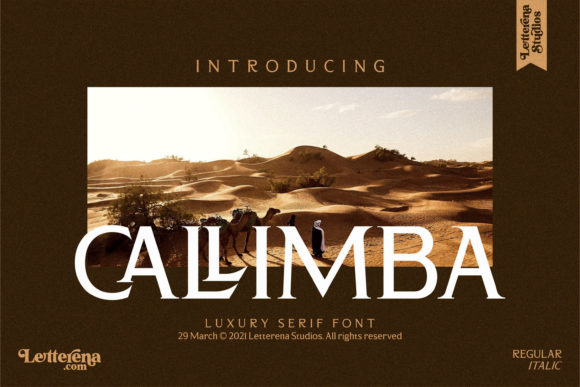
Introducing Callimba Font, the captivating serif font that will infuse your designs with a touch of timeless elegance and warmth. Created by the renowned Letterena Studios, Callimba is not just a font; it's an invitation to embark on a creative journey where your imagination knows no bounds.
With its delicate curves and graceful serifs, Callimba exudes a sense of sophistication that will elevate any project you undertake. Whether you're designing wedding invitations, crafting personalized stationery, or creating eye-catching social media posts, Callimba's versatile nature makes it the perfect choice for all your design needs.
Experience the joy of creating with a font that feels like a warm embrace. Callimba's inviting personality shines through in every letterform, adding a touch of charm and whimsy to your designs. Its readability and effortless flow make it ideal for extended text, ensuring your message captivates and resonates with your audience.
Dive into a world of endless creative possibilities with Callimba Font. Let its timeless beauty enhance your projects and inspire you to create designs that leave a lasting impression.